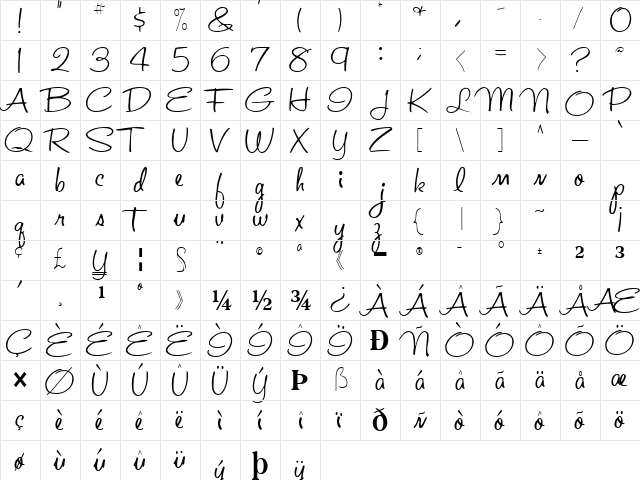
Ad Regular
Design Context for Ad Typeface
Ad takes a measured approach to typography — its balanced proportions and neutral character make it a reliable workhorse for both digital and print work.